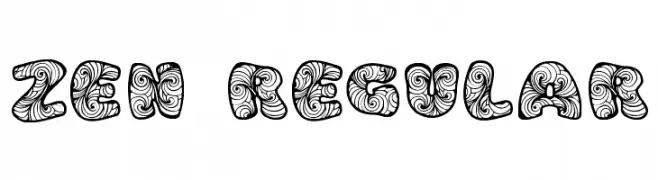
A bold, decorative font with intricate internal patterns and elegant swirls.
( Fonts by EvasUniqueFonts )
A decorative font with intricate, swirling patterns and bold, rounded letters.